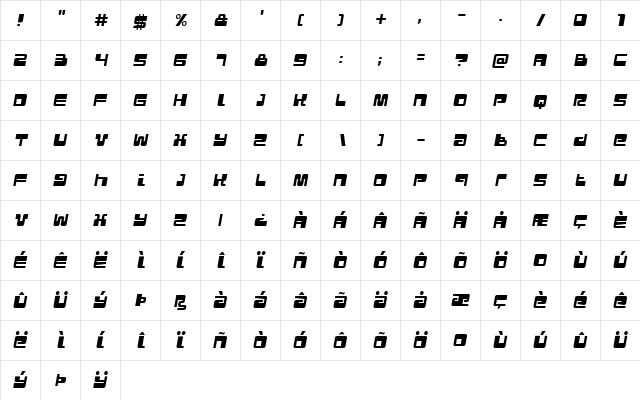
Urban Italic
| Designer | Andreas Nylin |
Design Context for Urban Typeface
Urban is a composed and adaptable typeface that performs quietly and consistently across a wide range of design contexts. Its italic angle brings a sense of urgency and motion to the letterforms.
Pro Tip: Try Urban for annotation and caption copy alongside an upright companion — the contrast in angle creates a dynamic but ordered typographic system.